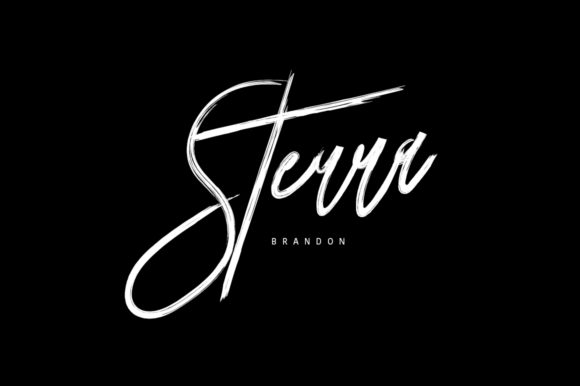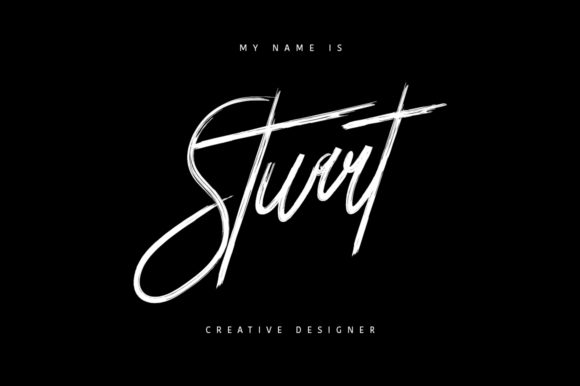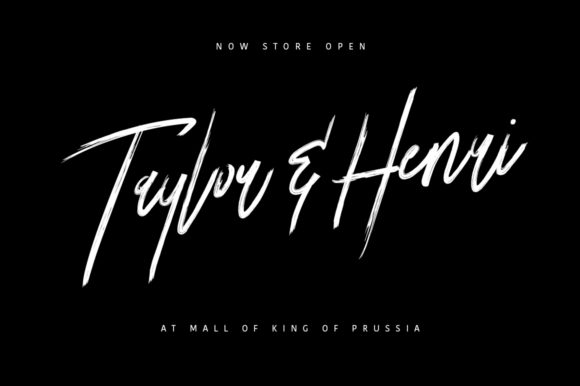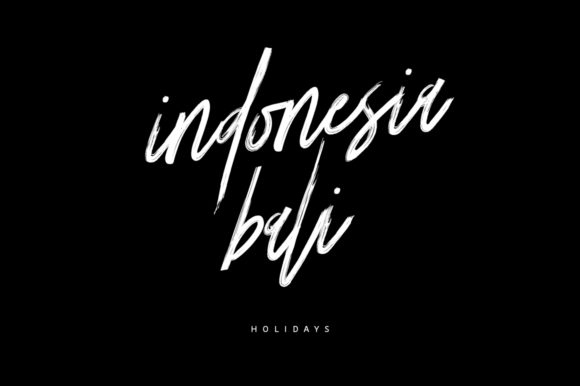
About Boostpest Font
Boostpest is an authentic brush font. Its casual charm makes it appear wonderfully down-to-earth, readable and, ultimately, incredibly versatile. Boostpest will look outstanding in any context, whether it’s being used on busy backgrounds or as a standalone headline!